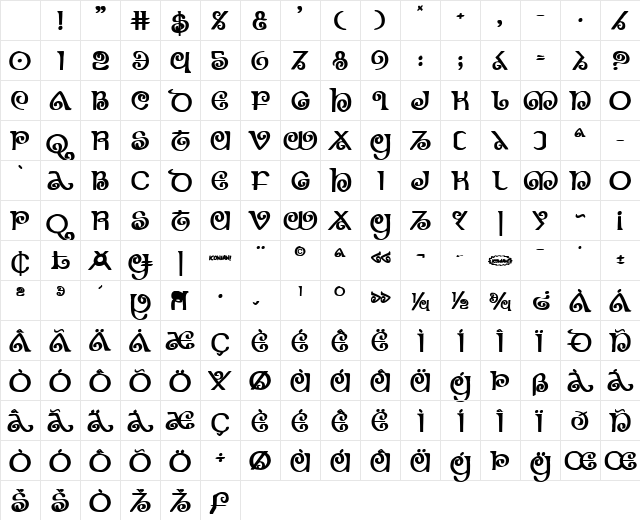
Complete The Shire Bold glyph index. Displaying only characters natively supported by The Shire Bold font.
The Shire is a composed and adaptable typeface that performs quietly and consistently across a wide range of design contexts. Its bold stroke weight gives it real presence on the page.